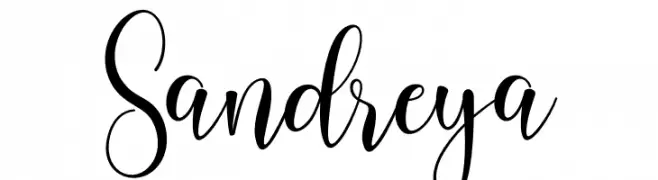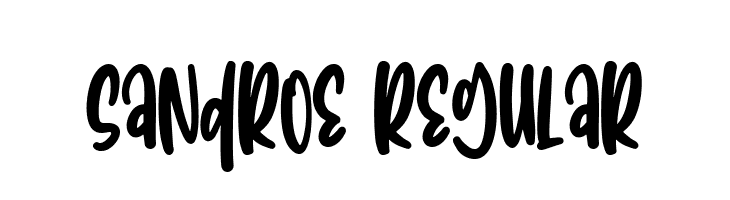
A fluid and elegant handwritten cursive font with seamless connections.
An elegant, flowing script font with graceful curves and artistic flair.
An elegant script font with fluid, graceful strokes and artistic curves.
An elegant, flowing script font with a sophisticated and graceful style.
A bold, hand-drawn font with a playful and artistic style.
A bold, expressive handwritten font with playful curves.
A sketch-like, hand-drawn font with dynamic and textured strokes.
A bold, italic, hand-drawn font with textured strokes and a dynamic style.